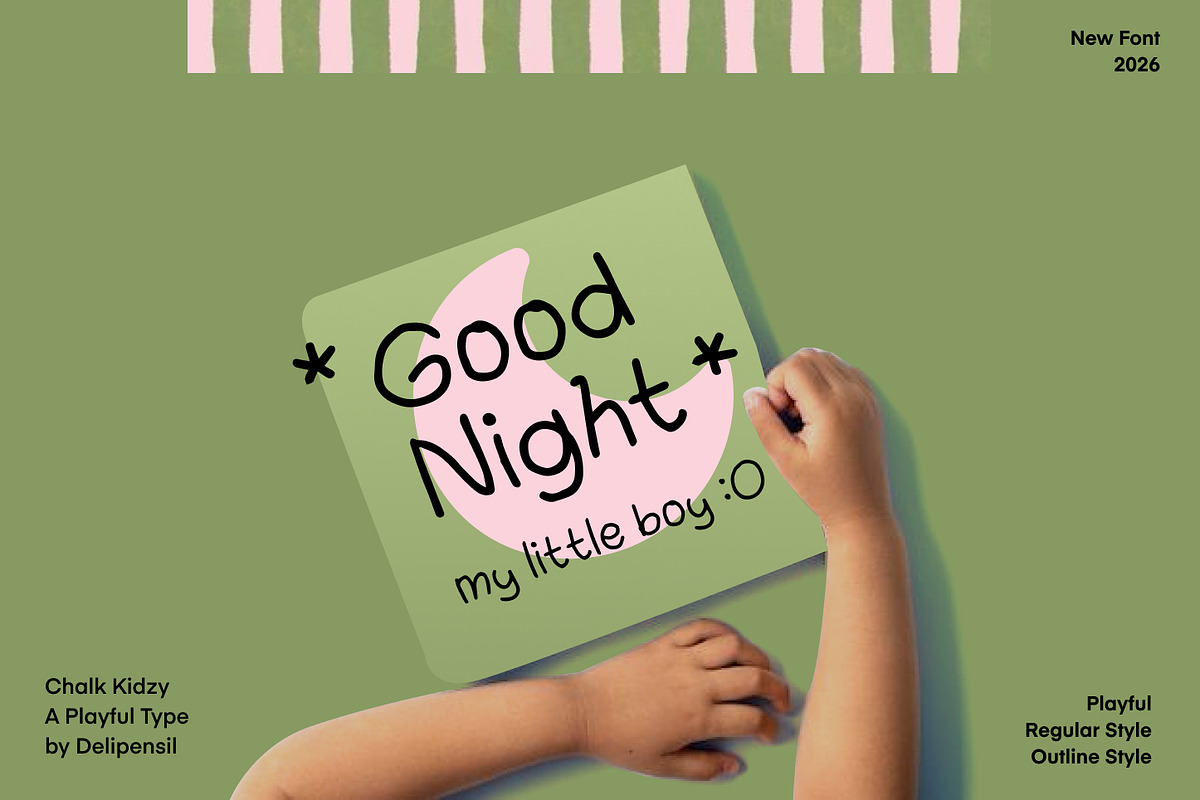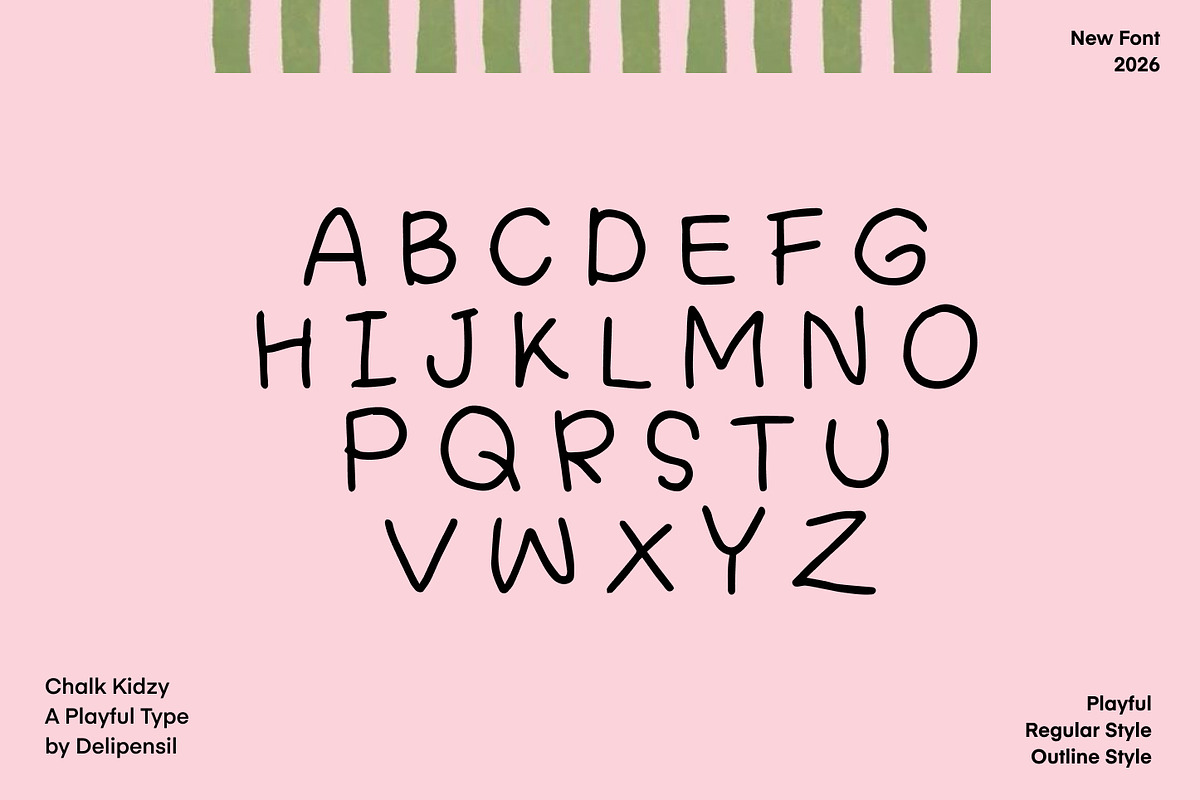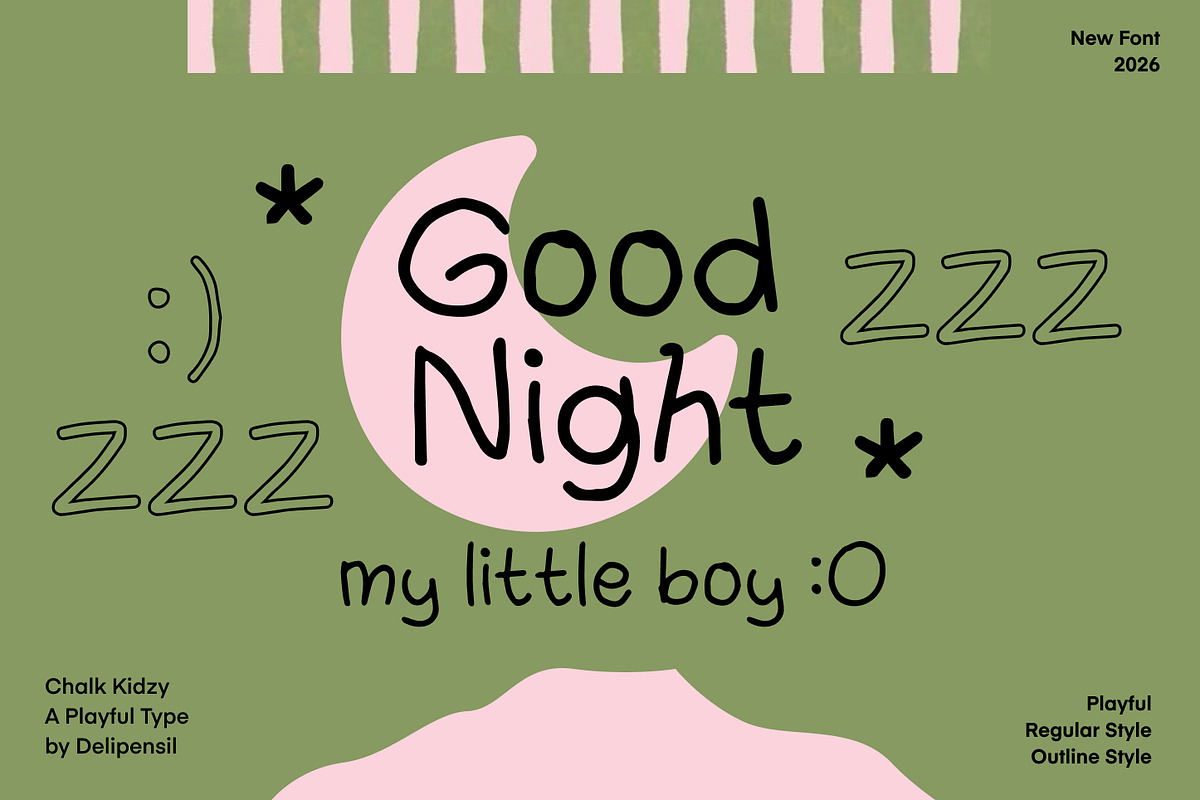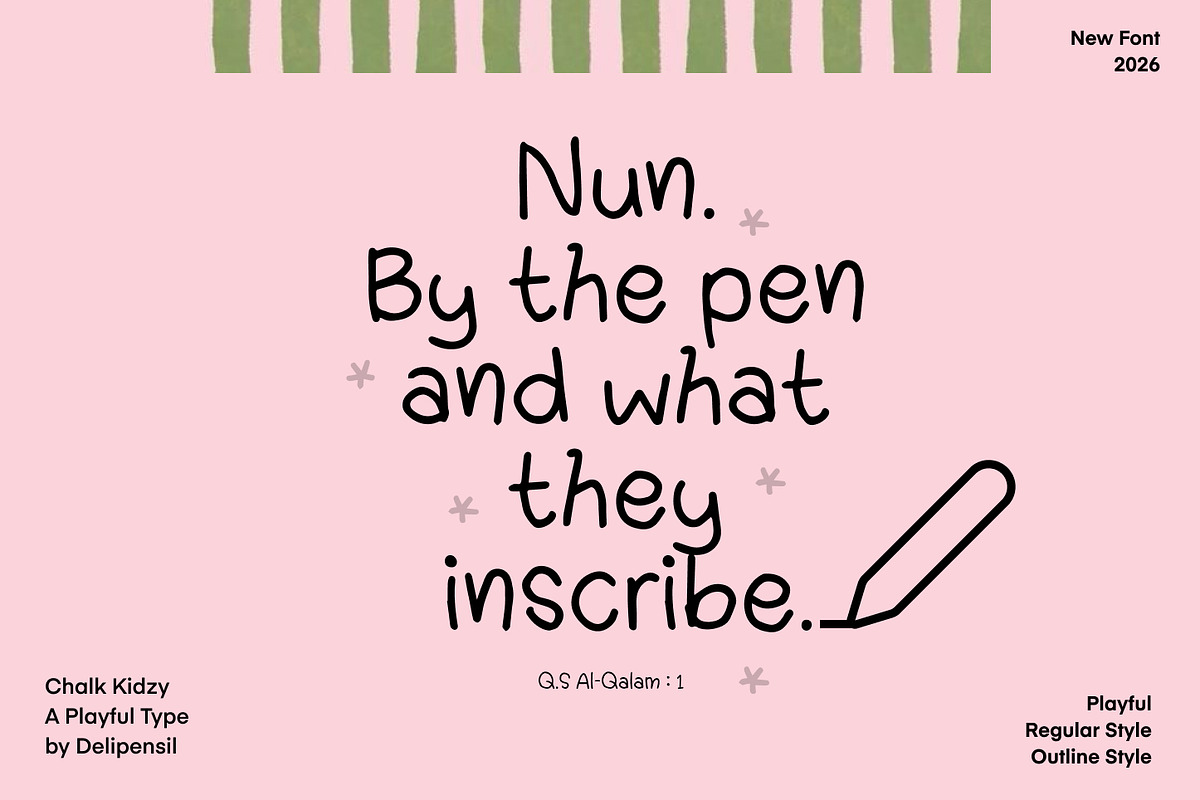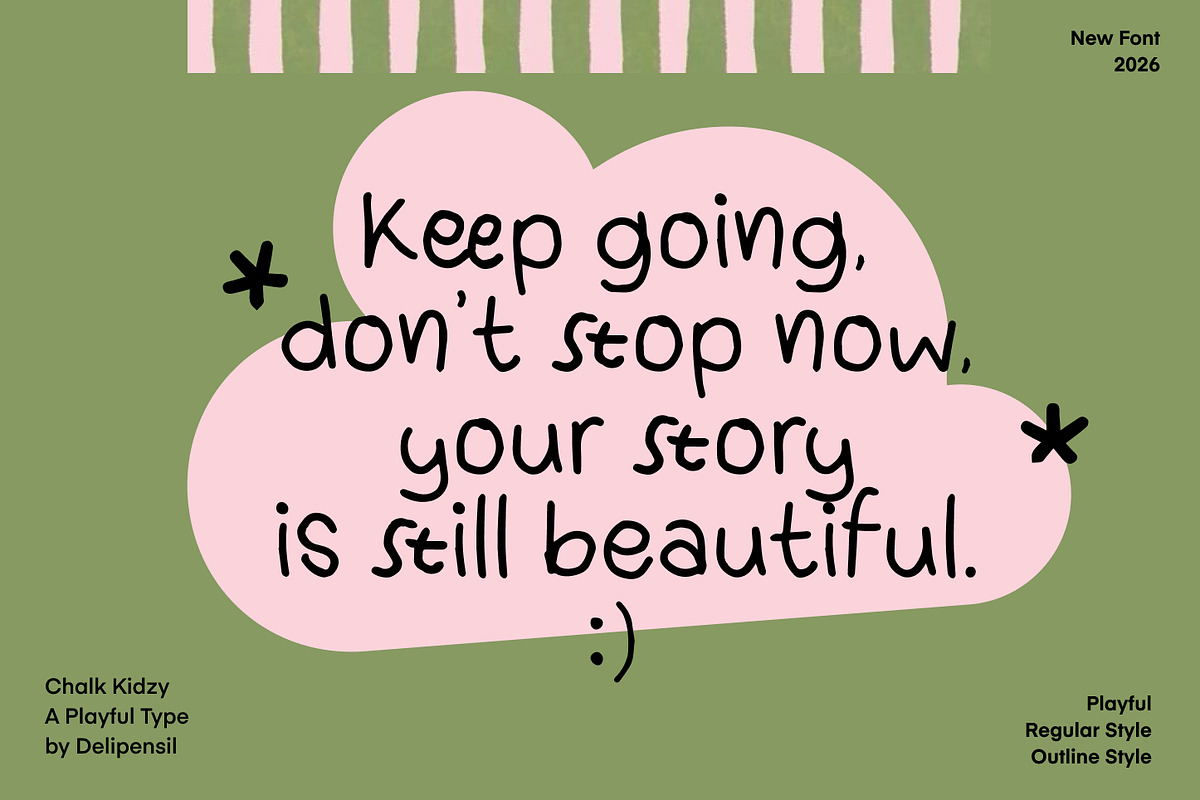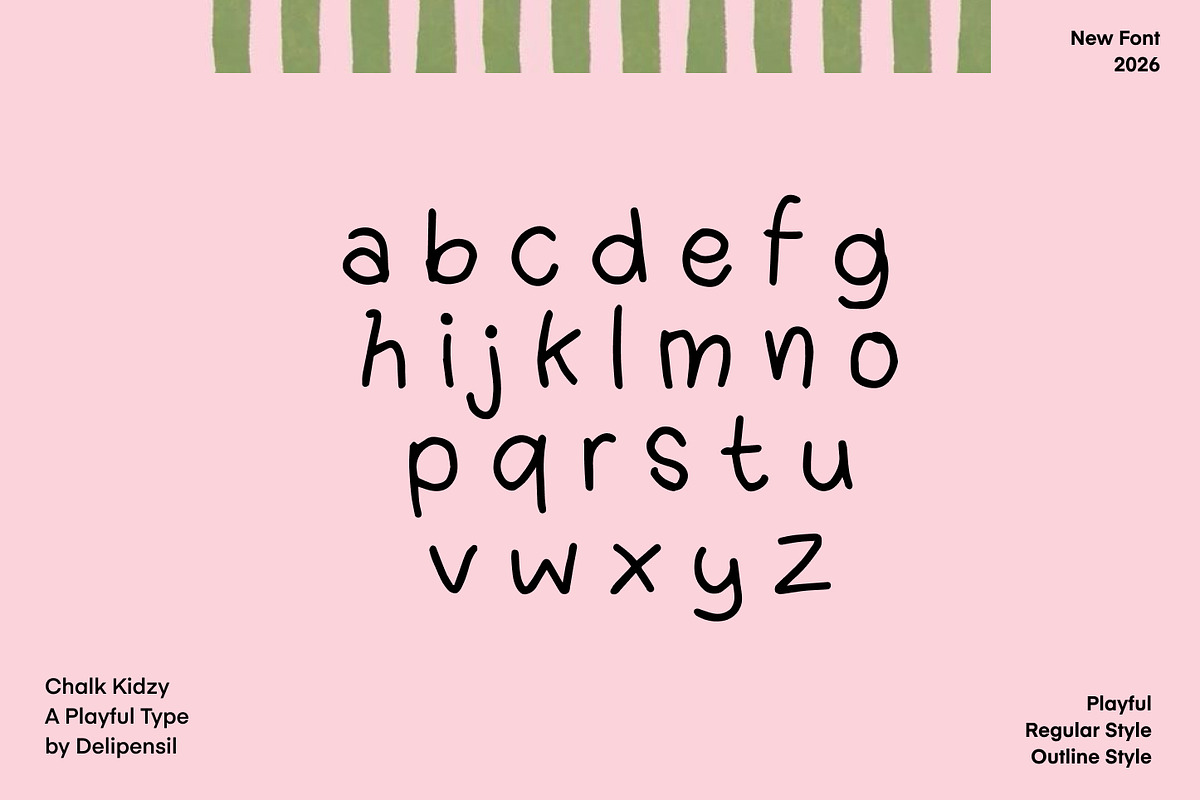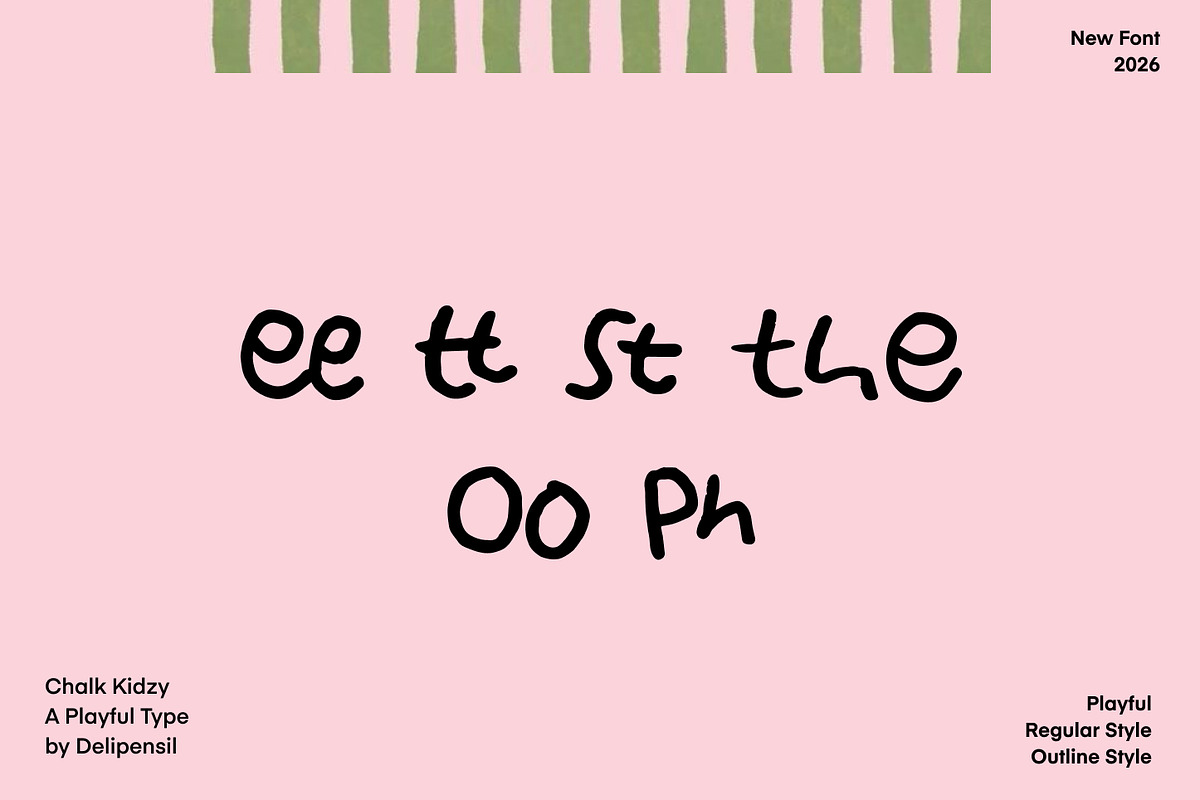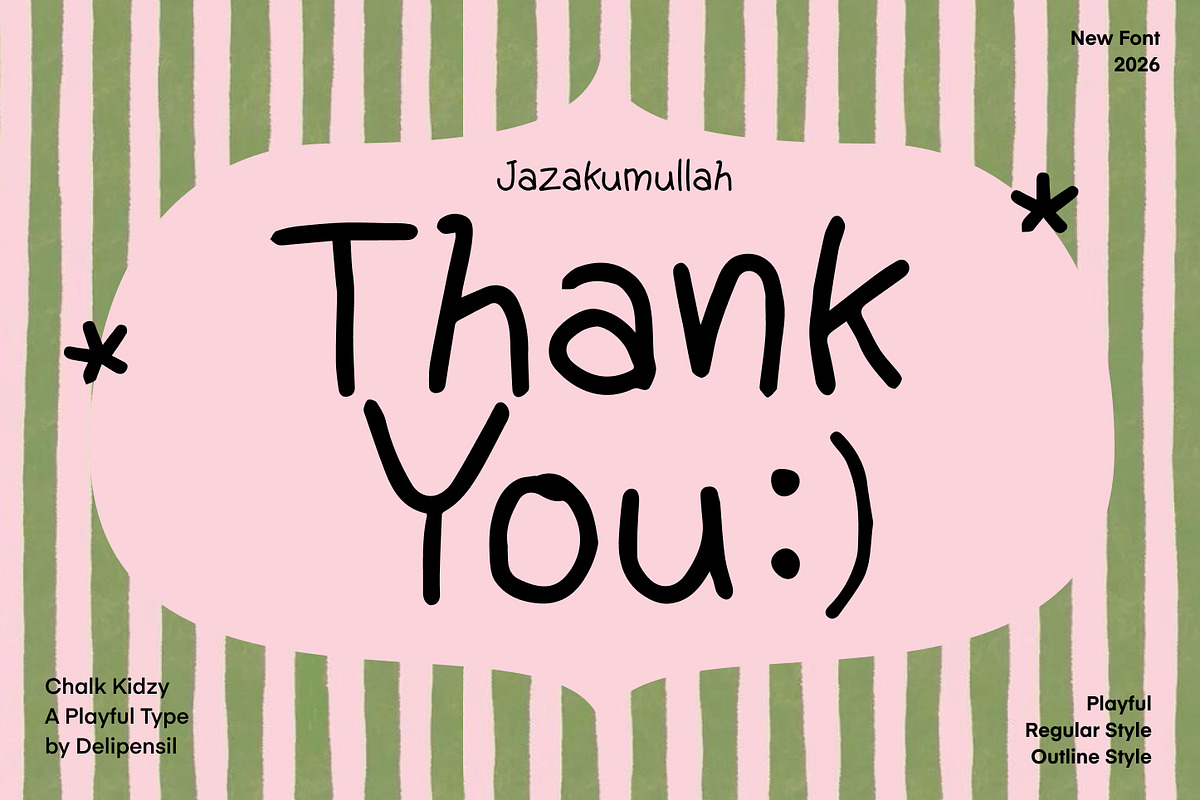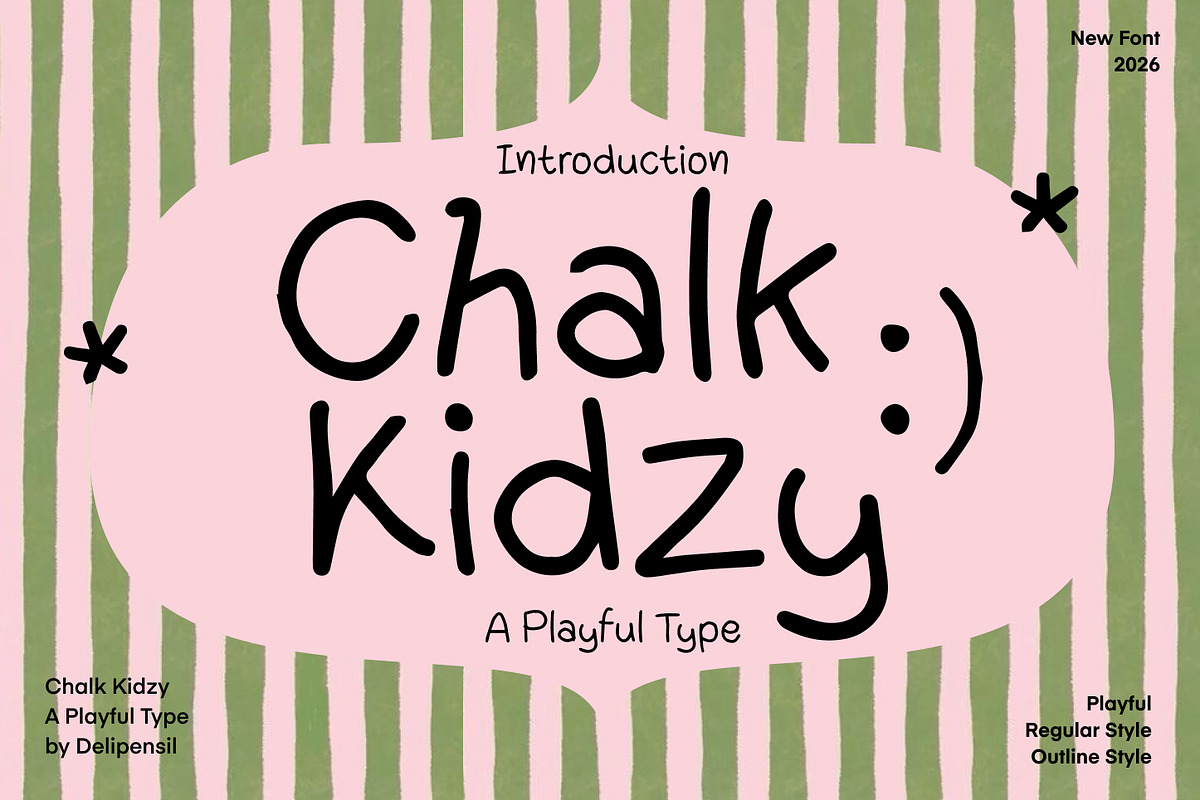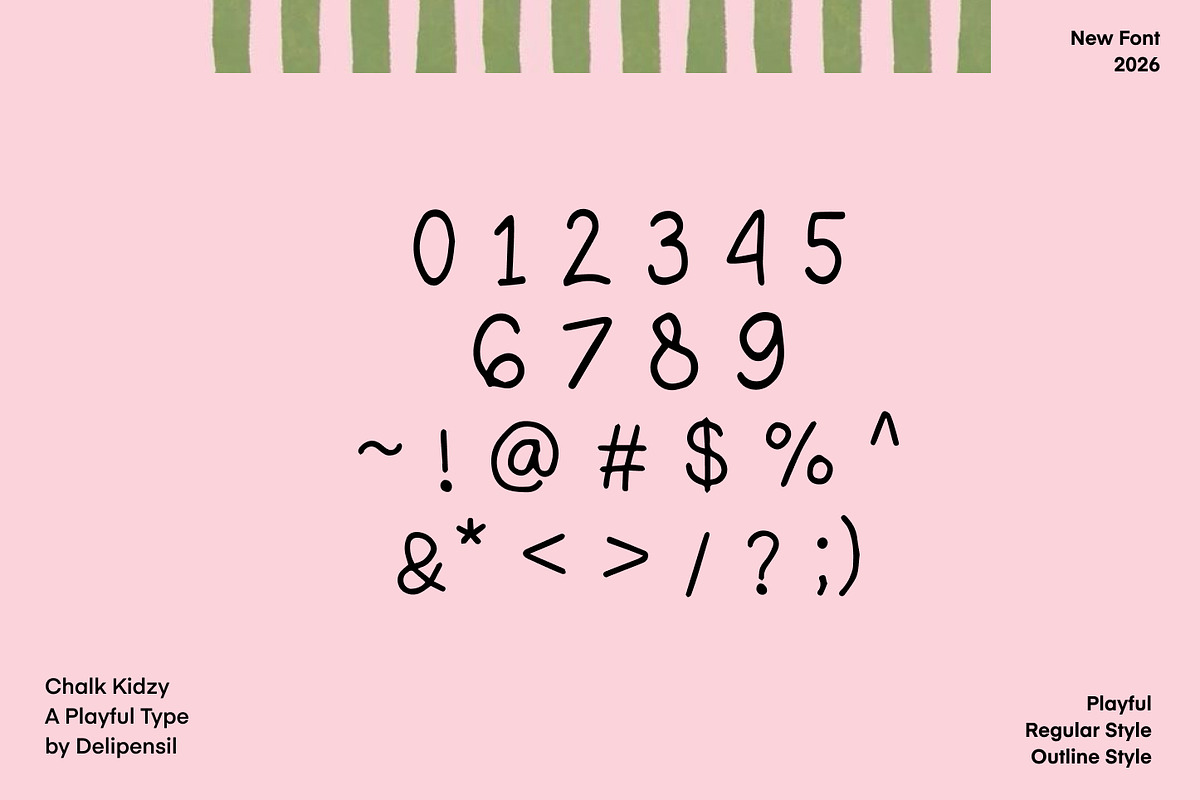
Chalk Kidzy - Bold, Fun, and Full
Bismillah, Meet Chalk Kidzy, a fun and cheerful chalk font inspired by kids’ imagination and classroom creativity. This font is perfect for children’s projects, school designs, playful branding, posters, worksheets, and creative digital content.
Let your designs feel lively, friendly, and full of chalkboard magic!
- Chalk Kidzy Ligature
- Chalk Kidzy Outline style
✨ Perfect for:
- Branding & logo design
- Posters & headlines
- Social media graphics
- Kids & playful designs
- Packaging & merchandise
- Quotes & creative layouts